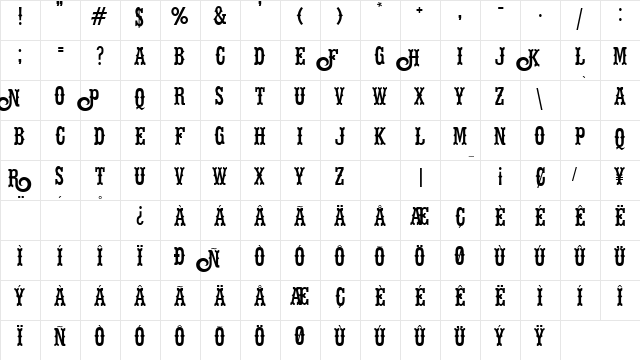
Hells Rider Regular
Design Context for Hells Rider Typeface
Hells Rider is a composed and adaptable typeface that performs quietly and consistently across a wide range of design contexts.